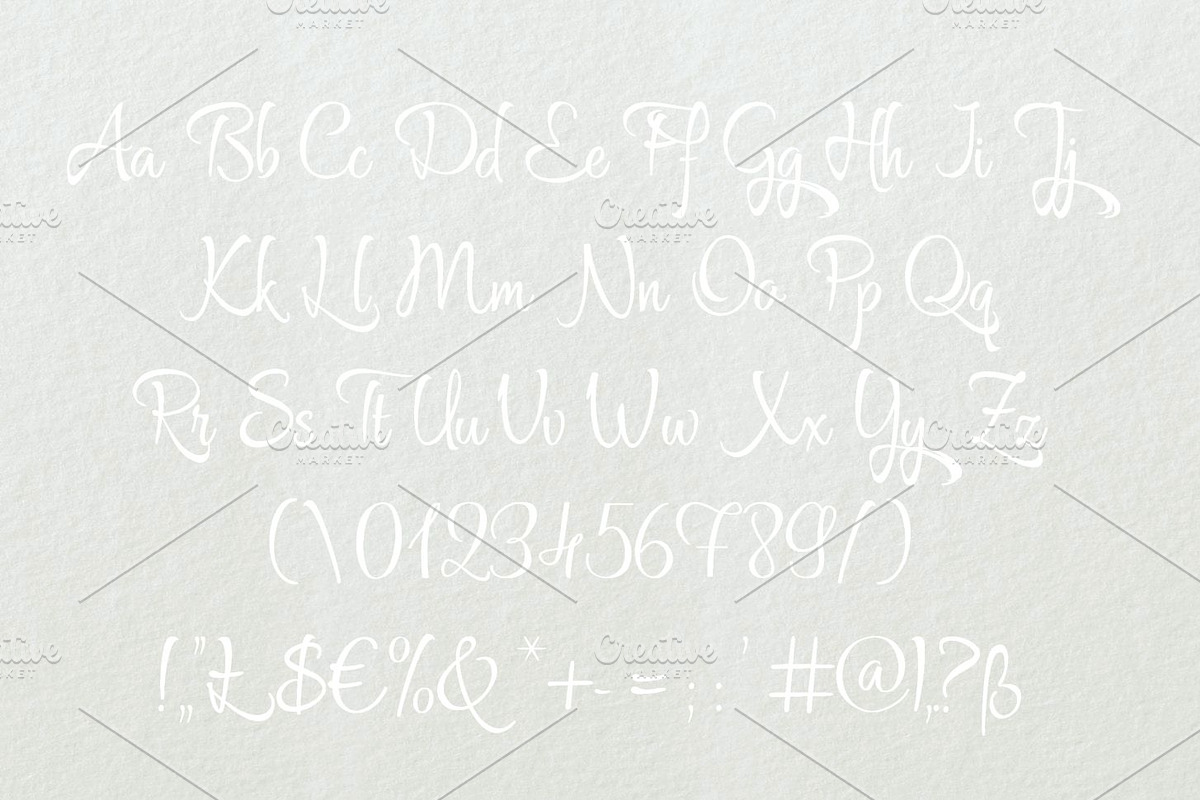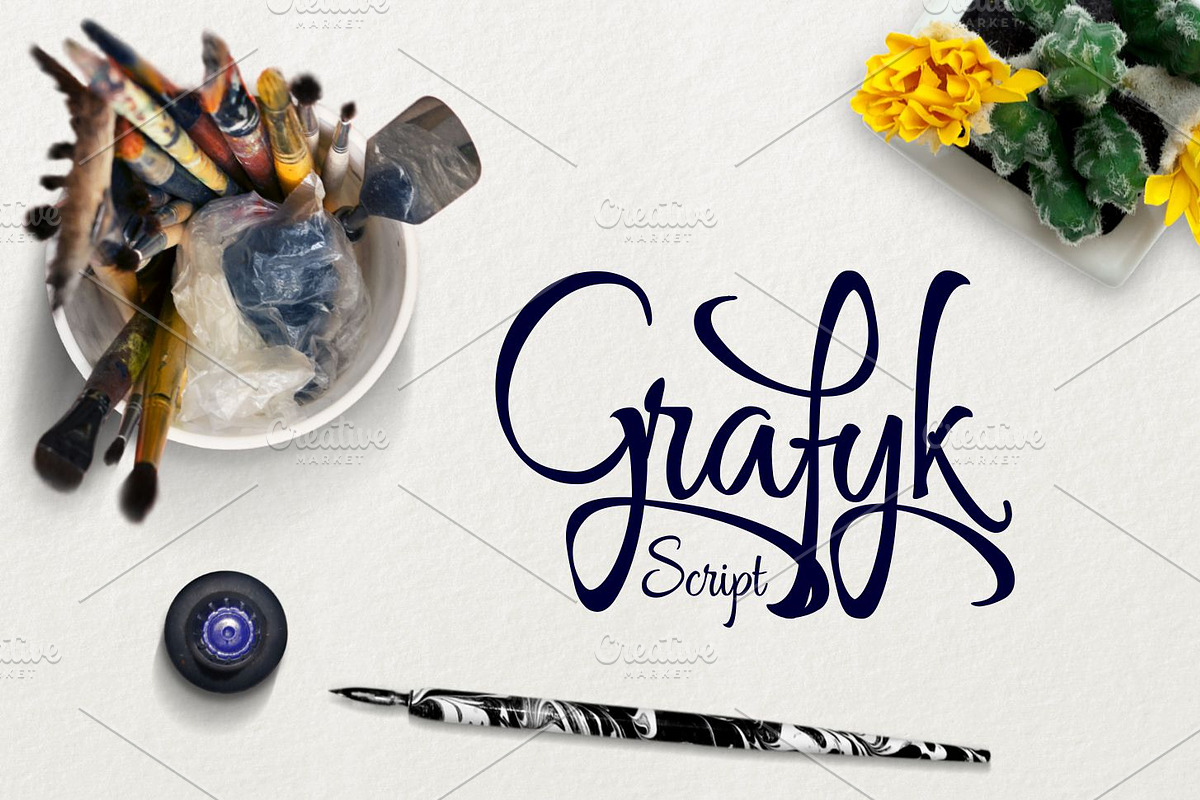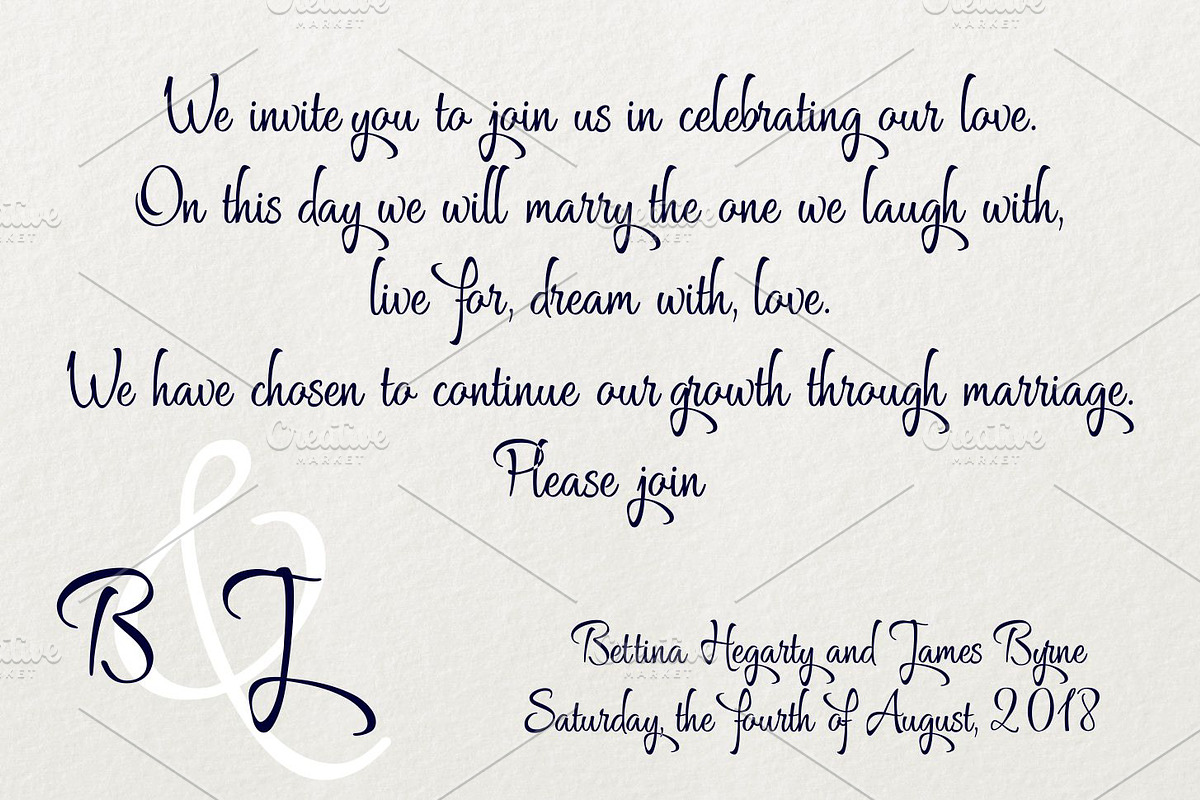
Grafyk
Introducing Grafyk handwritten typeface.
Why Grafyk is worth a look
Grafyk by Digital Typeface Studio fits naturally into Branding, posters, packaging, typography.